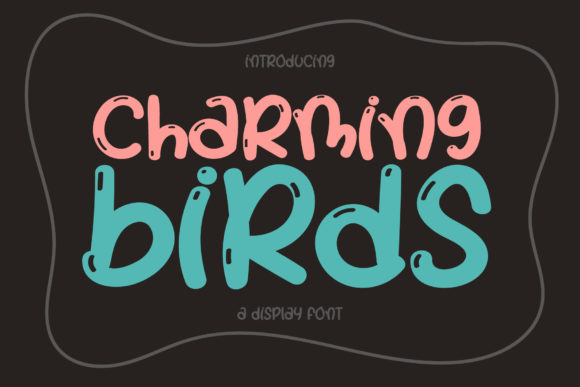
**Welcome to the World of Whimsy with Charming Birds Font**
Are you ready to let your imagination soar into a delightful realm where cuteness and charm reign supreme? Introducing Charming Birds Font, the enchanting display typeface that will add a touch of whimsy to all your creative endeavors.
**A Symphony of Innocence and Joy**
Inspired by the cheerful chirping of feathered friends, Charming Birds Font captures the essence of youthfulness and innocence. Its playful curves and bubbly shapes dance across the page, evoking a sense of childhood wonder and carefree abandon.
**Perfect for Educational Adventures**
With its whimsical yet legible nature, Charming Birds Font becomes the perfect companion for educational materials that aim to engage young minds. Whether crafting lesson plans for aspiring writers or creating captivating presentations for school projects, this font will transform learning into a joyful experience.
**Bring Stories to Life with Playful Charm**
Let your imagination take flight and weave tales filled with vibrant characters and magical settings. Charming Birds Font lends an irresistible charm to children's books, storyboards, and other narrative creations, inviting readers to immerse themselves in a world of wonder and imagination.
**Unleash Your Inner Designer**
Express your creativity beyond the realm of education. Charming Birds Font adds a delightful touch to invitations, greeting cards, social media posts, and any design project that calls for a hint of whimsy. Its versatility extends to posters, flyers, and even website designs, ensuring that your message stands out with a unique and eye-catching appeal.
**Created with Love, Designed for Delight**
Every stroke and curve of Charming Birds Font has been meticulously crafted to bring joy to your designs. Created by the talented Wanida Toffy, this font embodies a love for playful typography and a desire to inspire creativity in others.